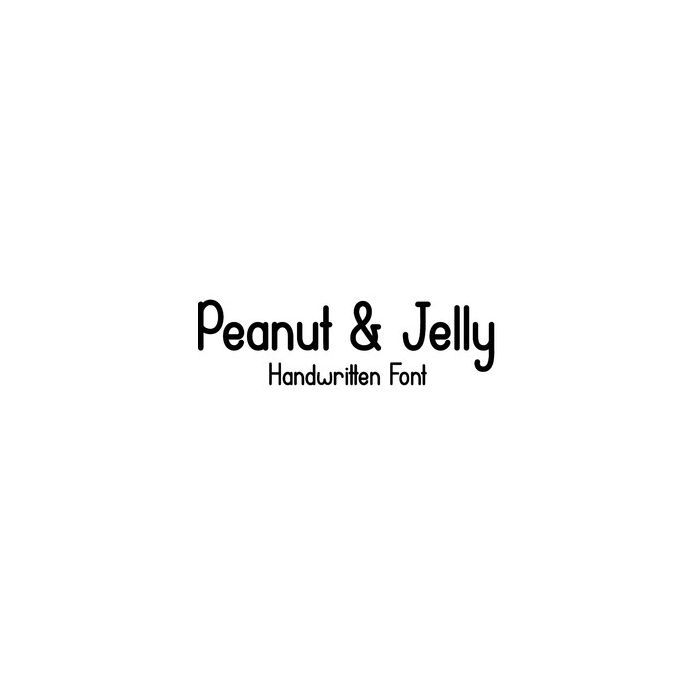
Peanut and Jelly Font
Adorable Handwritten Font. This is a perfect basic font that will fit almost any holiday and project. It includes uppercase, lowercase, numbers and international characters.